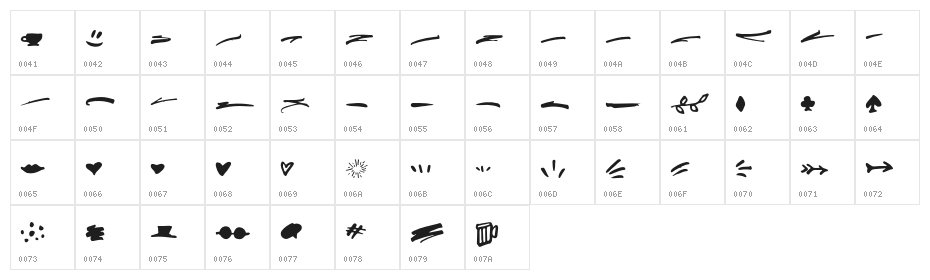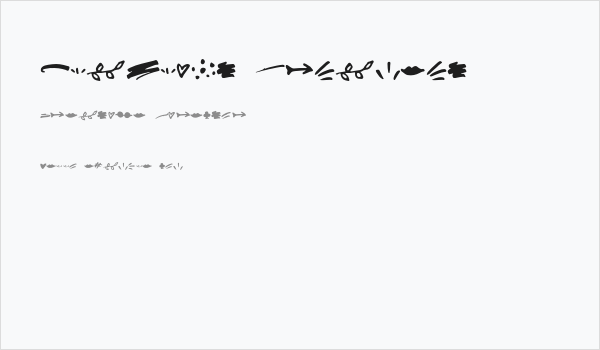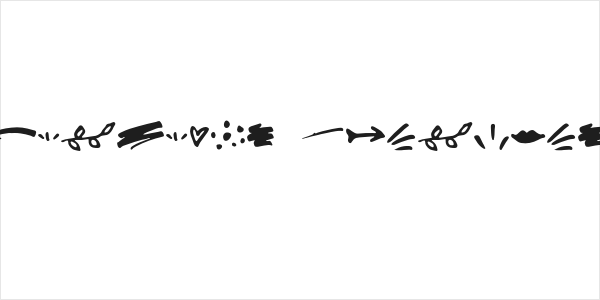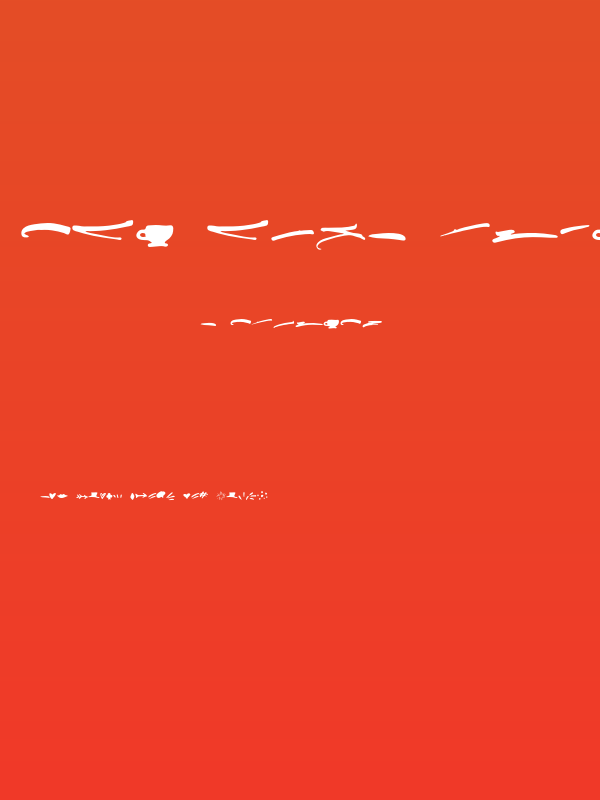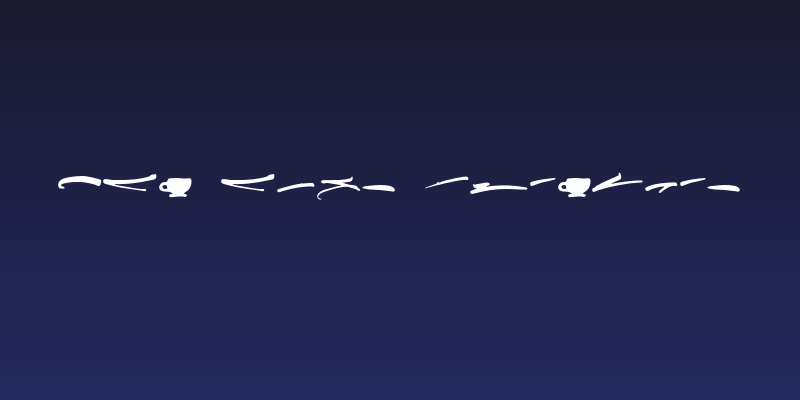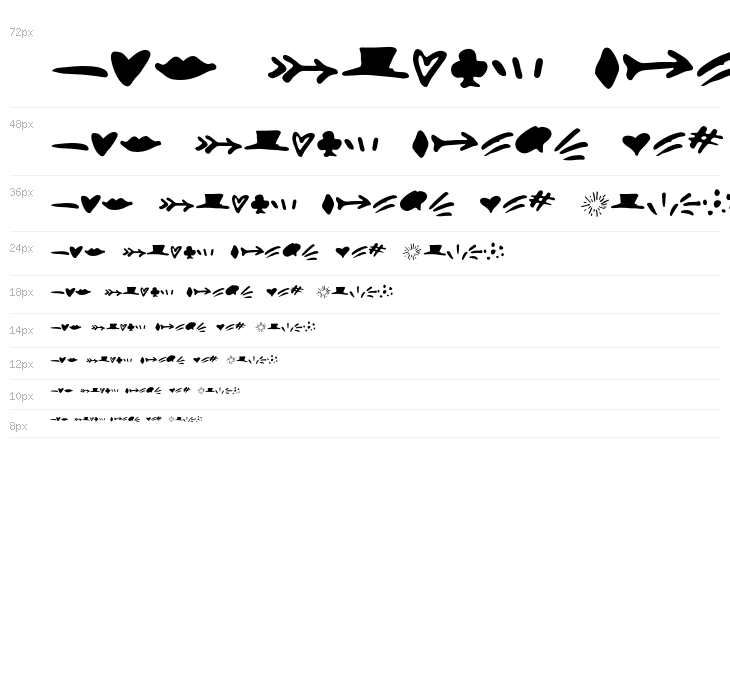
Playlist-Ornament Font
Playlist-Ornament Description
This collection features a whimsical and decorative set of ornaments that include a variety of playful symbols and shapes. The designs range from simple lines and arrows to more intricate icons like hearts, leaves, and abstract forms. Each element is crafted with a hand-drawn feel, adding a touch of personality and charm. The bold strokes and varied shapes make these ornaments ideal for adding flair to creative projects. The assortment includes both symmetrical and asymmetrical designs, offering versatility in their application. These ornaments can be used to embellish invitations, greeting cards, or any project that requires a unique and artistic touch.
Use CaseLogos, Decorative elements
Proposed ProjectsIdeal for invitations, greeting cards, scrapbooking, and creative design projects.